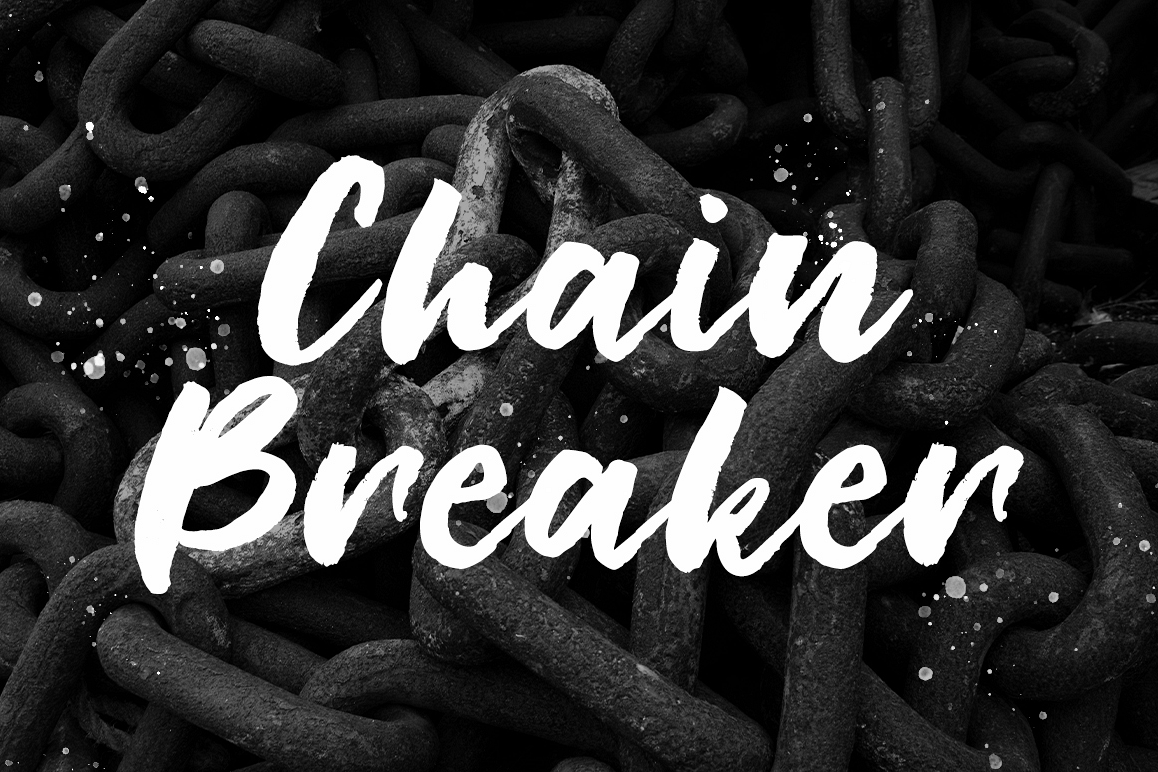
Chain Breaker
Chain Breaker is a
font that is intentionally made with a rough brush, so it has a perfect
initial character and looks unique and attractive. It is suitable for
your various personal designs such as clothing, invitations, book
titles, stationery designs, quotes, branding, logos, greeting cards, t
shirt, packaging design, posters and more. Chain Breaker includes a complete set of upper, alternates upper, lower case letters, plus extras as well as multi-language support, numbers, punctuation.